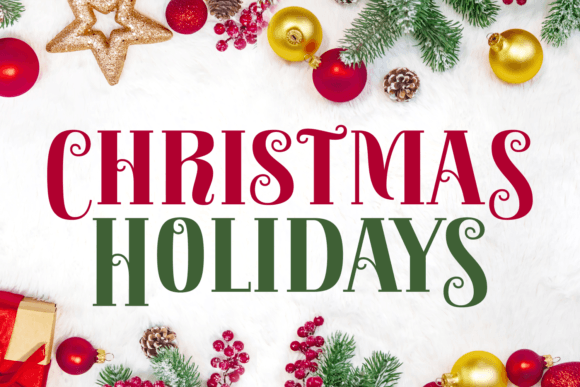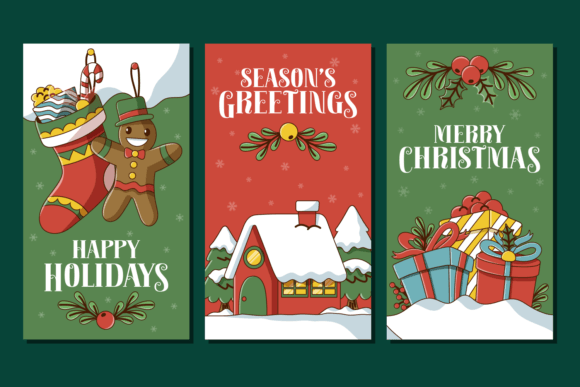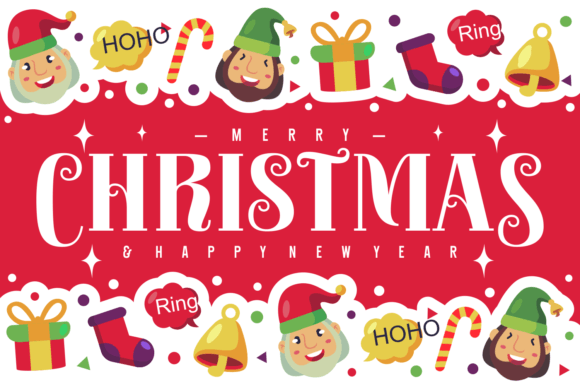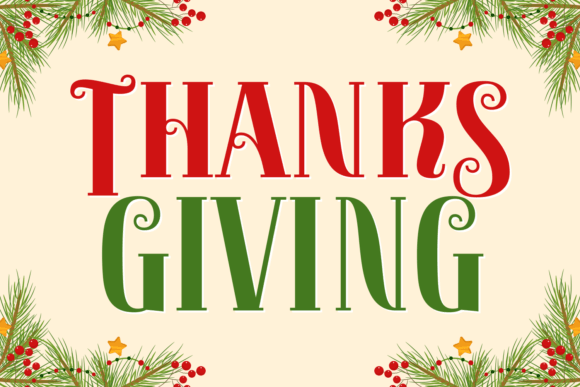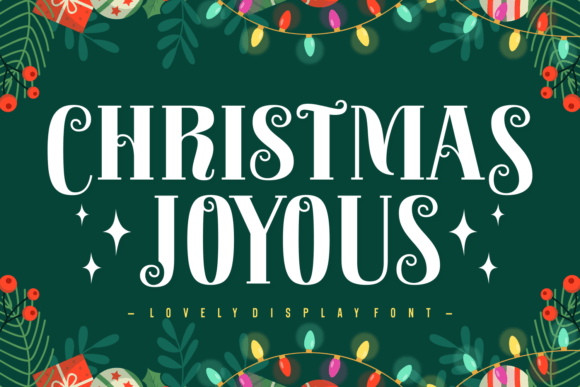
Introducing Christmas Joyous Font: The Perfect Holiday Addition to Your Designs
As the holiday season approaches, designers and crafters are on the lookout for the perfect typography to add a touch of festive cheer to their projects. Look no further than the Christmas Joyous Font, a charming serif font that embodies the spirit of Christmas with its elegant and cheerful design. In this article, we’ll dive into the world of Christmas Joyous, exploring its features, benefits, and uses, and why it’s the ideal choice for creating warm and inviting Christmas-themed materials.
A Festive Font that Captures the Essence of Christmas
Christmas Joyous Font is a beautiful, serif font that exudes the magic of the holiday season. Its graceful letterforms are designed to evoke a sense of nostalgia and warmth, making it perfect for creating Christmas-themed materials that resonate with your audience. Whether you’re designing holiday cards, gift tags, or festive posters, Christmas Joyous Font is the perfect choice to add a touch of elegance and sophistication to your projects.
Key Features of Christmas Joyous Font
- Elegant Serif Design: Christmas Joyous Font features a classic serif design that adds a touch of sophistication to your projects.
- Cheerful and Festive: The font’s playful and cheerful design makes it perfect for creating festive and joyful Christmas-themed materials.
- Graceful Letterforms: The font’s elegant letterforms are designed to evoke a sense of nostalgia and warmth, making it perfect for creating holiday cards, gift tags, and other festive materials.
- High-Quality Design: Christmas Joyous Font is designed with high-quality craftsmanship, ensuring that your projects look professional and polished.
Benefits of Using Christmas Joyous Font
So, why choose Christmas Joyous Font for your holiday projects? Here are just a few benefits of using this charming font:
- Adds a Touch of Elegance: Christmas Joyous Font adds a touch of sophistication and elegance to your projects, making them perfect for special occasions.
- Creates a Festive Atmosphere: The font’s cheerful and festive design helps to create a joyful and celebratory atmosphere, perfect for holiday-themed materials.
- Versatile and Easy to Use: Christmas Joyous Font is easy to use and can be applied to a wide range of projects, from holiday cards and gift tags to festive posters and social media graphics.
- Perfect for Designers and Crafters: Whether you’re a professional designer or a crafter, Christmas Joyous Font is the perfect choice for creating beautiful and festive holiday projects.
Uses for Christmas Joyous Font
So, how can you use Christmas Joyous Font in your projects? Here are just a few ideas to get you started:
- Holiday Cards and Invitations: Use Christmas Joyous Font to create beautiful and festive holiday cards and invitations.
- Gift Tags and Labels: Add a touch of elegance to your gift tags and labels with Christmas Joyous Font.
- Festive Posters and Flyers: Use Christmas Joyous Font to create eye-catching and festive posters and flyers for your holiday events.
- Social Media Graphics: Add a touch of festive cheer to your social media graphics with Christmas Joyous Font.